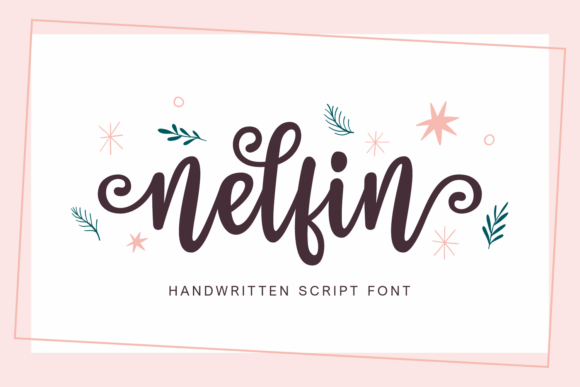
Nelfin Font: The Perfect Handwritten Script for a Personal Touch
In the world of typography, fonts play a crucial role in conveying the tone and personality of a message. Among the numerous fonts available, Nelfin font stands out for its unique, casual, and friendly appeal. This beautiful handwritten script font is designed to add a personal touch to any text, making it perfect for invitations, greeting cards, and other applications that require a warm, inviting feel.
What is Nelfin Font?
Nelfin font is a carefully crafted handwritten script font that exudes a sense of warmth and approachability. Its flowing, connected letters create a smooth, fluid look that is both elegant and informal. The font’s casual nature makes it an excellent choice for a wide range of creative projects, from digital content to print materials.
One of the defining features of Nelfin font is its ability to convey a sense of personality and emotion. The font’s handwritten style gives it a unique, human touch that is often lacking in more traditional typography. Whether you’re looking to create a warm and inviting atmosphere or simply want to add some character to your text, Nelfin font is an excellent choice.
Perfect for Invitations, Greeting Cards, and More
Nelfin font is particularly well-suited for applications that require a personal touch. Here are some of the ways you can use this beautiful font:
- Invitations: Whether you’re planning a wedding, birthday party, or other special event, Nelfin font is an excellent choice for your invitations. The font’s warm, inviting style sets the tone for a memorable occasion.
- Greeting Cards: Add a personal touch to your greeting cards with Nelfin font. The font’s friendly, approachable style makes it perfect for birthdays, holidays, and other special occasions.
- Digital Content: Nelfin font is also well-suited for digital content, such as blog posts, social media updates, and email newsletters. The font’s casual, conversational style helps to create a sense of connection with your audience.
- Print Materials: From brochures and flyers to posters and banners, Nelfin font can add a touch of personality to your print materials.
The Benefits of Using Nelfin Font
So why choose Nelfin font for your next project? Here are some of the benefits of using this beautiful handwritten script font:
- Unique and Memorable: Nelfin font is unlike any other font you’ll find. Its unique, handwritten style makes it memorable and engaging.
- Warm and Inviting: The font’s warm, inviting style creates a sense of connection with your audience.
- Flexible: Nelfin font is versatile and can be used for a wide range of applications, from digital content to print materials.
- Easy to Read: Despite its handwritten style, Nelfin font is easy to read, making it perfect for body text and other applications where readability is important.
Tips for Using Nelfin Font
To get the most out of Nelfin font, here are some tips to keep in mind:
- Use it Sparingly: While Nelfin font is beautiful, it can be overwhelming if used excessively. Use it sparingly to add a touch of personality to your text.
- Pair it with Other Fonts: Nelfin font pairs well with other fonts, such as sans-serif fonts like Arial or Helvetica. Experiment with different font combinations to find the perfect look for your project.
- Adjust the Size: Nelfin font looks best when used at a larger size, such as for headings or titles. For body text, consider using a smaller size to improve readability.
In conclusion, Nelfin font is a beautiful handwritten script font that adds a personal touch to any text. Its warm, inviting style makes it perfect for invitations, greeting cards, and other applications that require a friendly, approachable tone. With its unique and memorable style, Nelfin font is sure to make your project stand out.